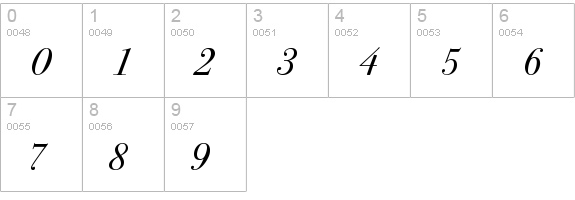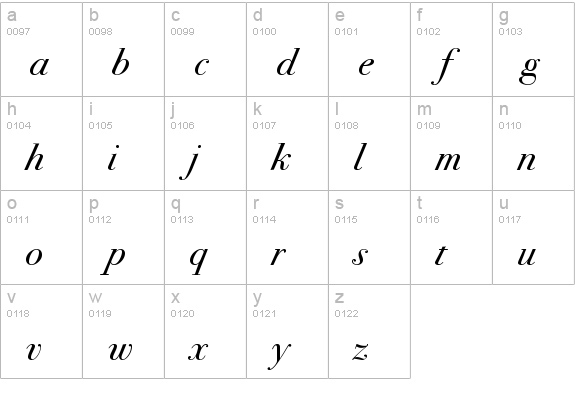
BodoniSeventytwoEF-BookIta Font Details
BodoniSeventytwoEF-BookIta font is a timeless and elegant typeface that exudes sophistication and classic style. Its slender and graceful letterforms make it perfect for adding a touch of refinement to any design project. With its delicate serifs and crisp lines, BodoniSeventytwoEF-BookIta font is ideal for conveying a sense of luxury and taste. The best part? This exquisite font is available for free download at FontsMarket.com, making it accessible to designers and creatives who appreciate quality typography without breaking the bank. Whether you're working on a branding project, editorial layout, or any other creative endeavor, BodoniSeventytwoEF-BookIta font will elevate your design with its timeless beauty and sophistication. Don't miss out on this opportunity to enhance your work with this stunning typeface, now just a click away for free at FontsMarket.com.